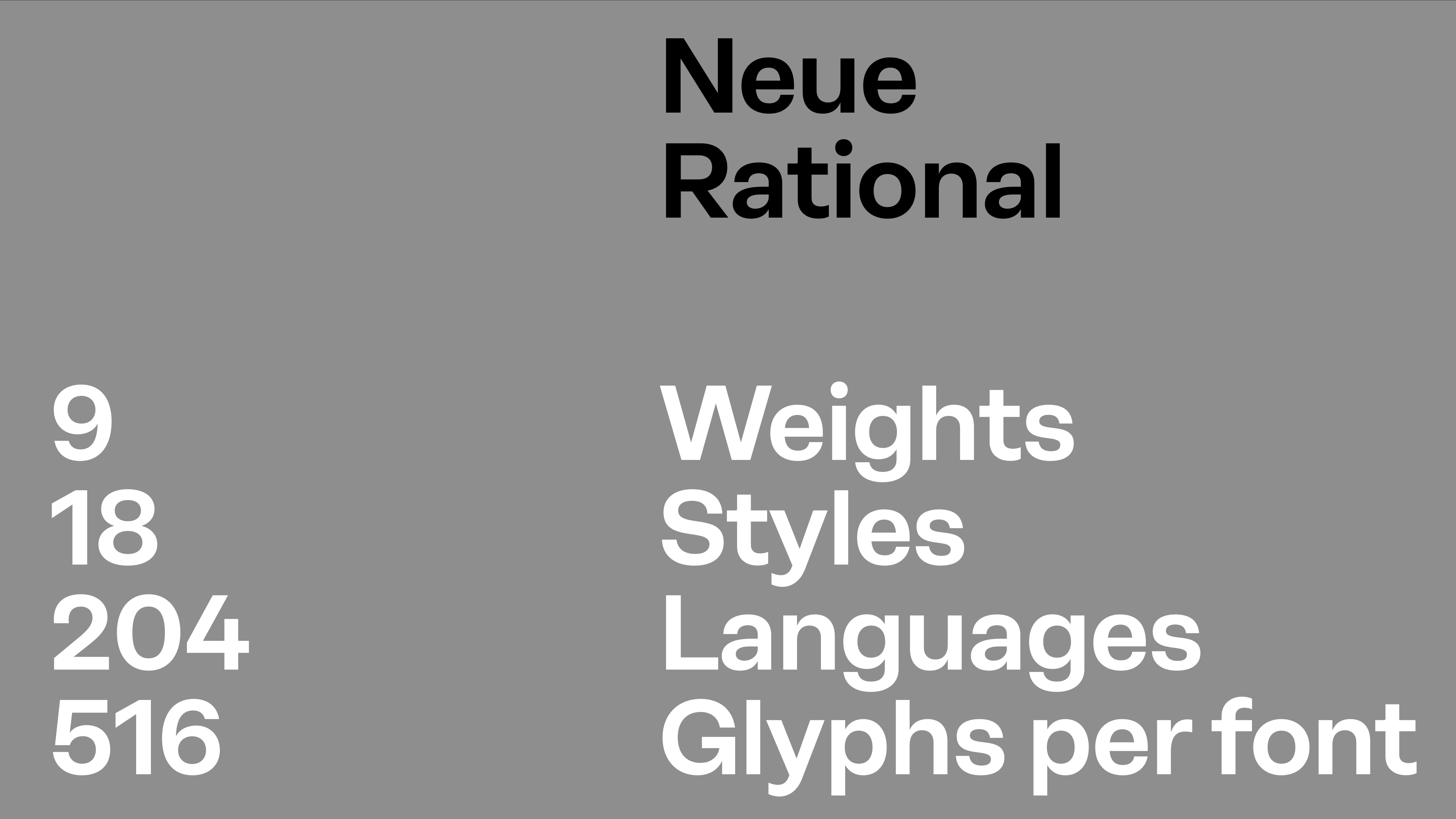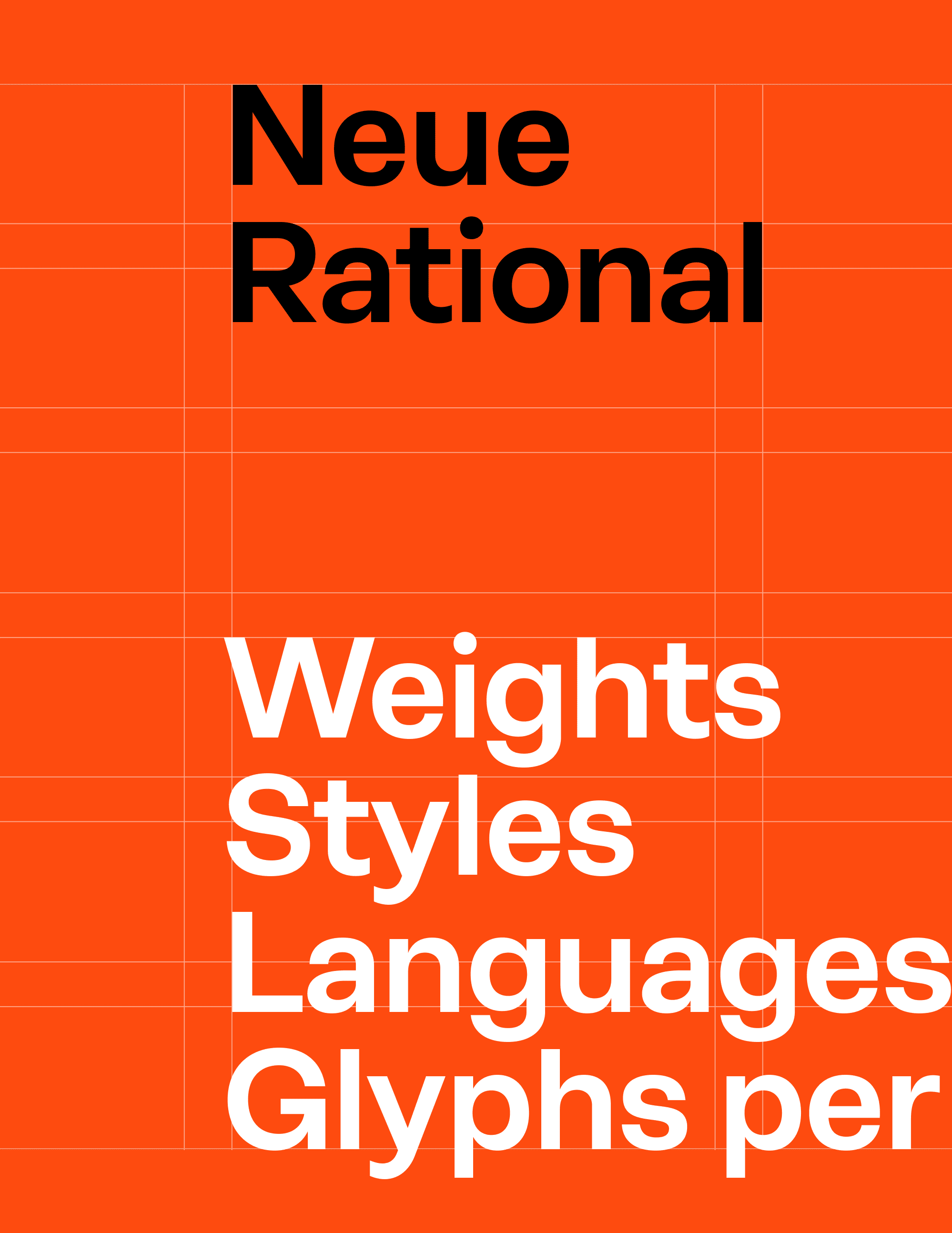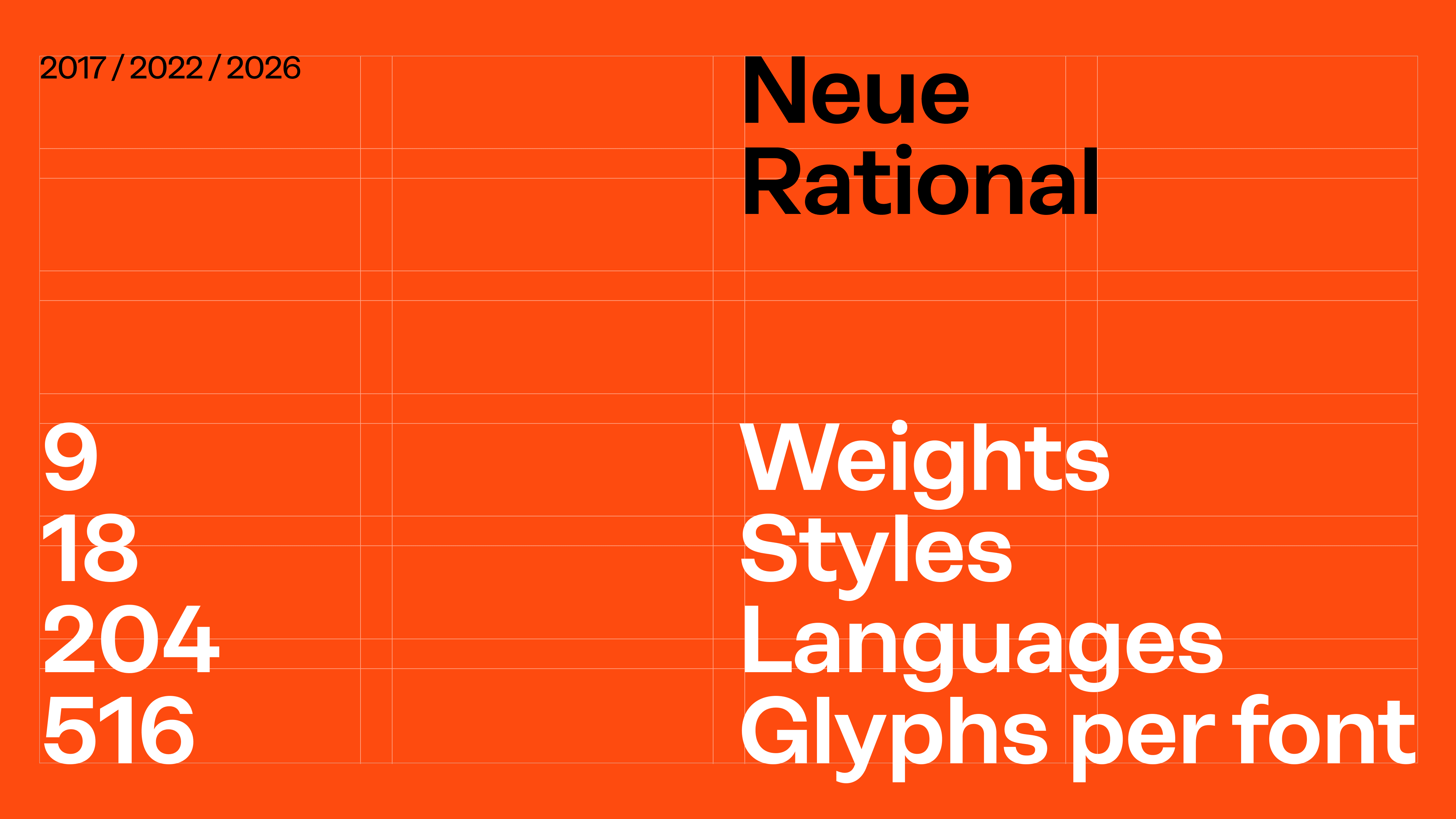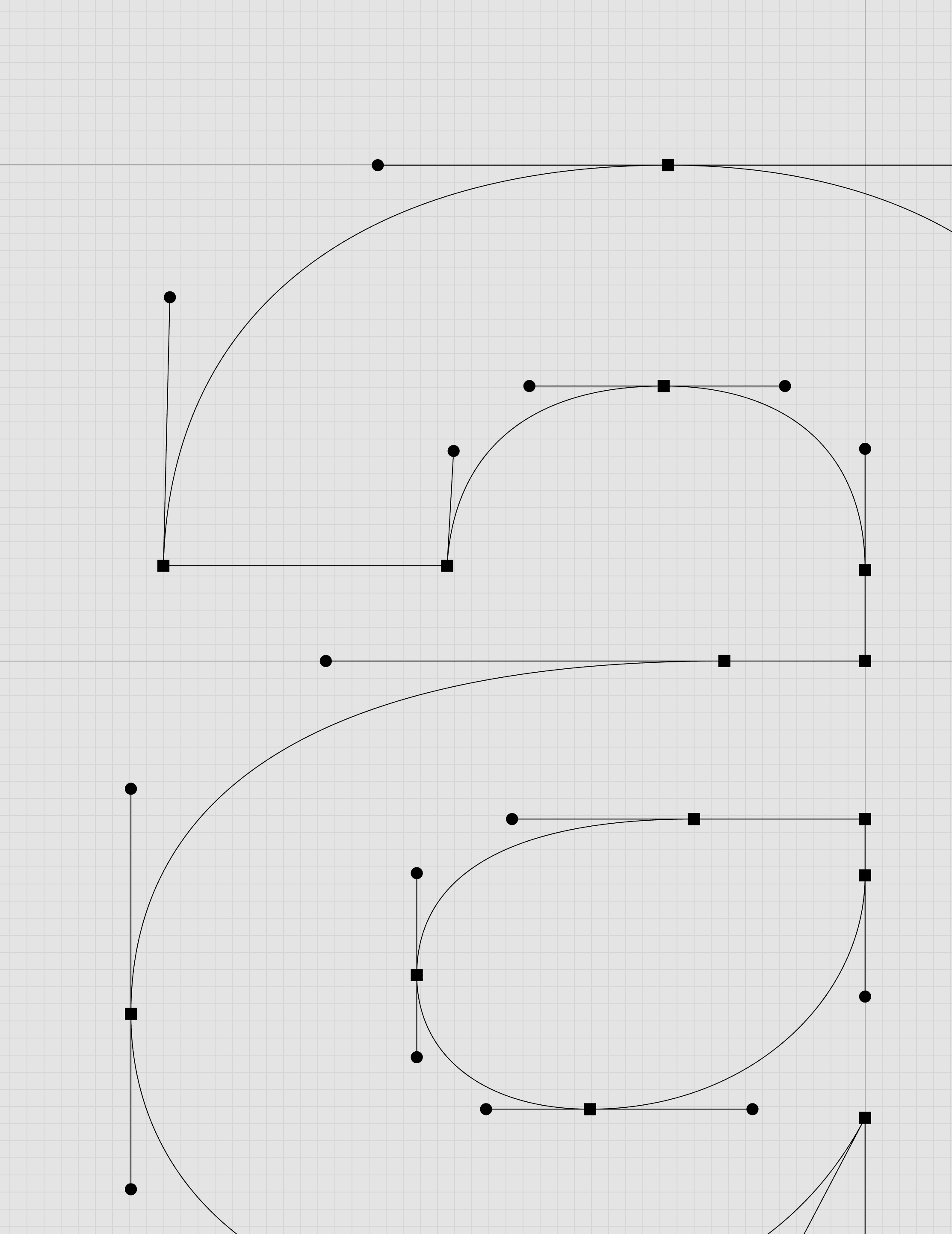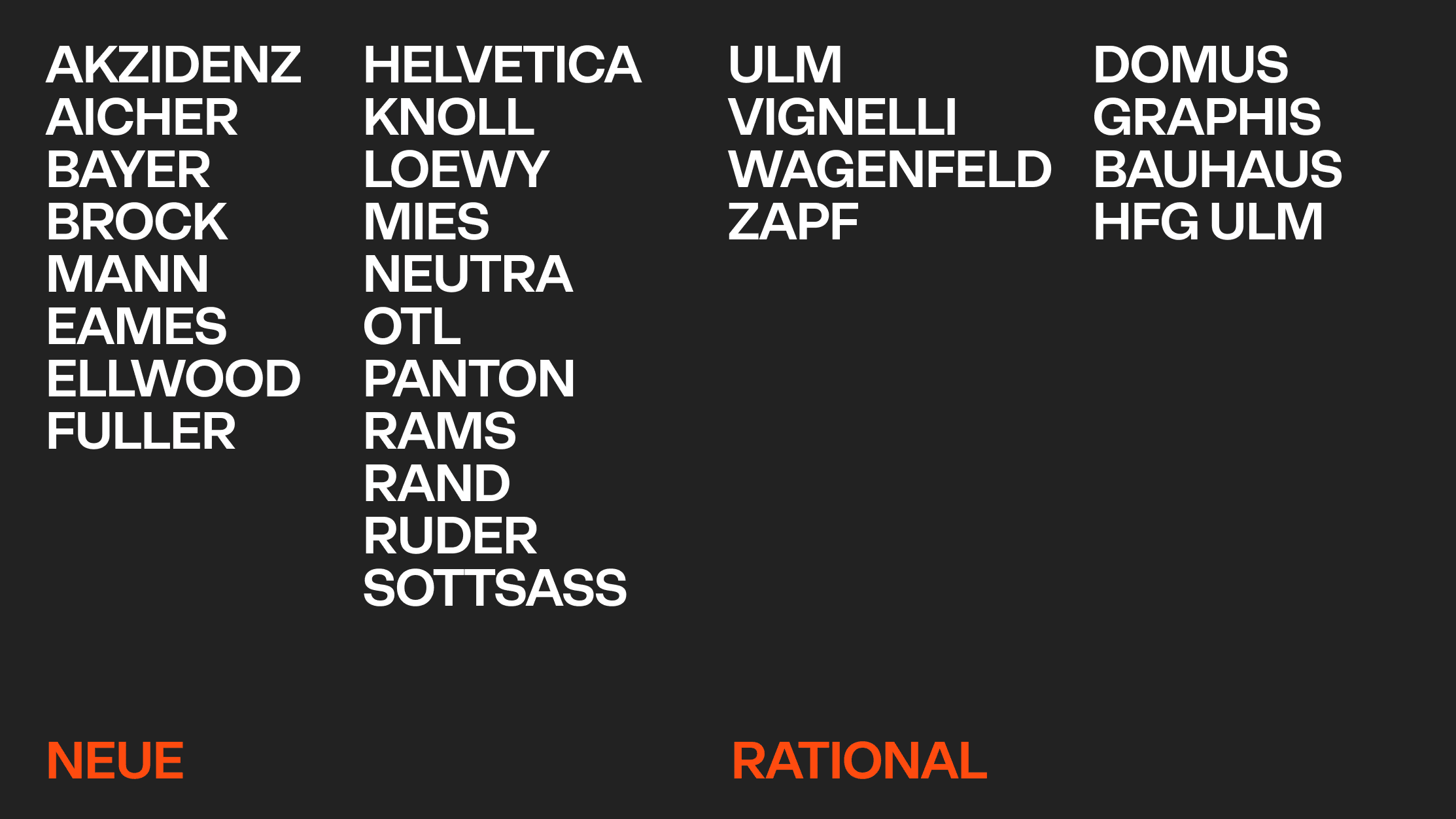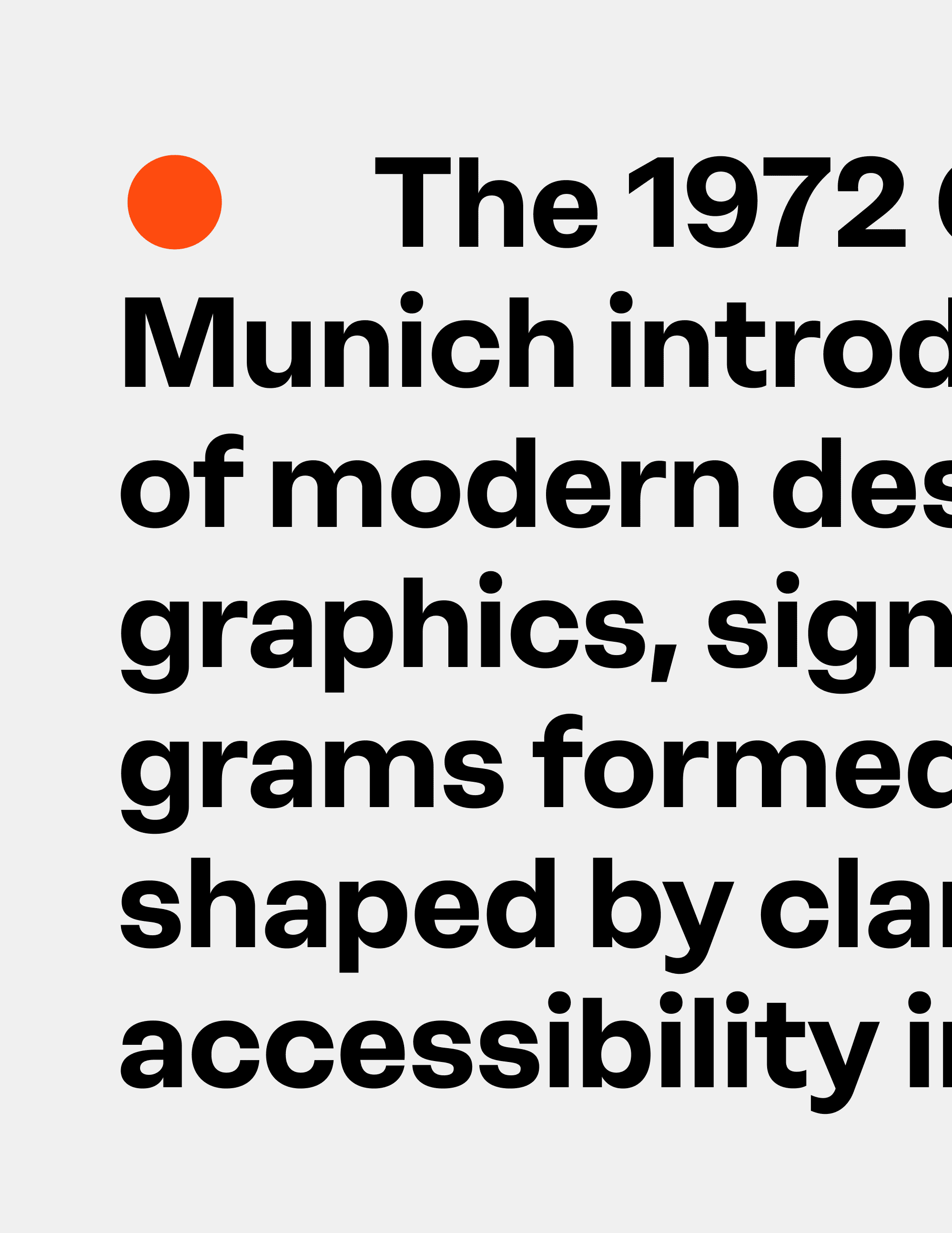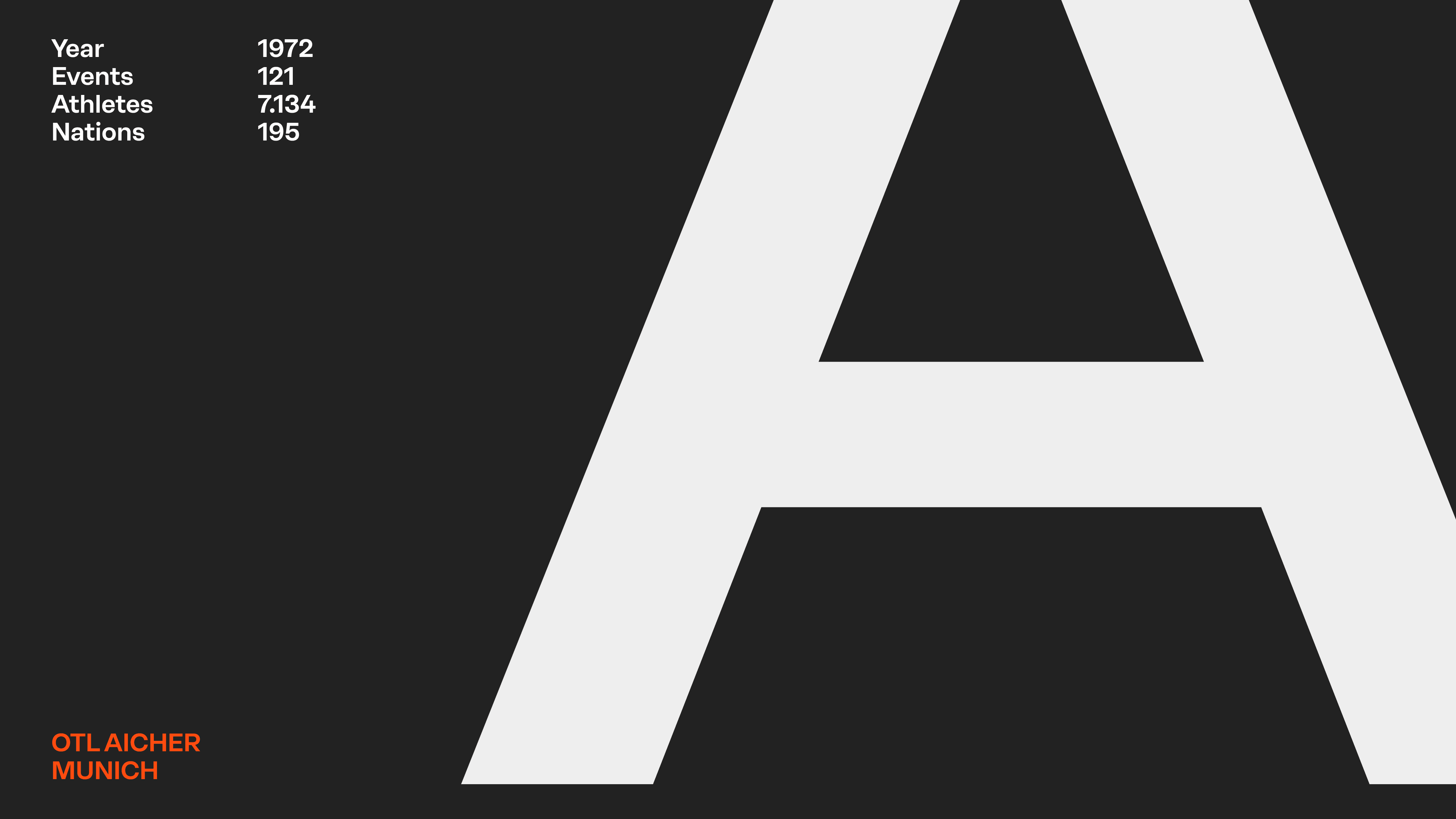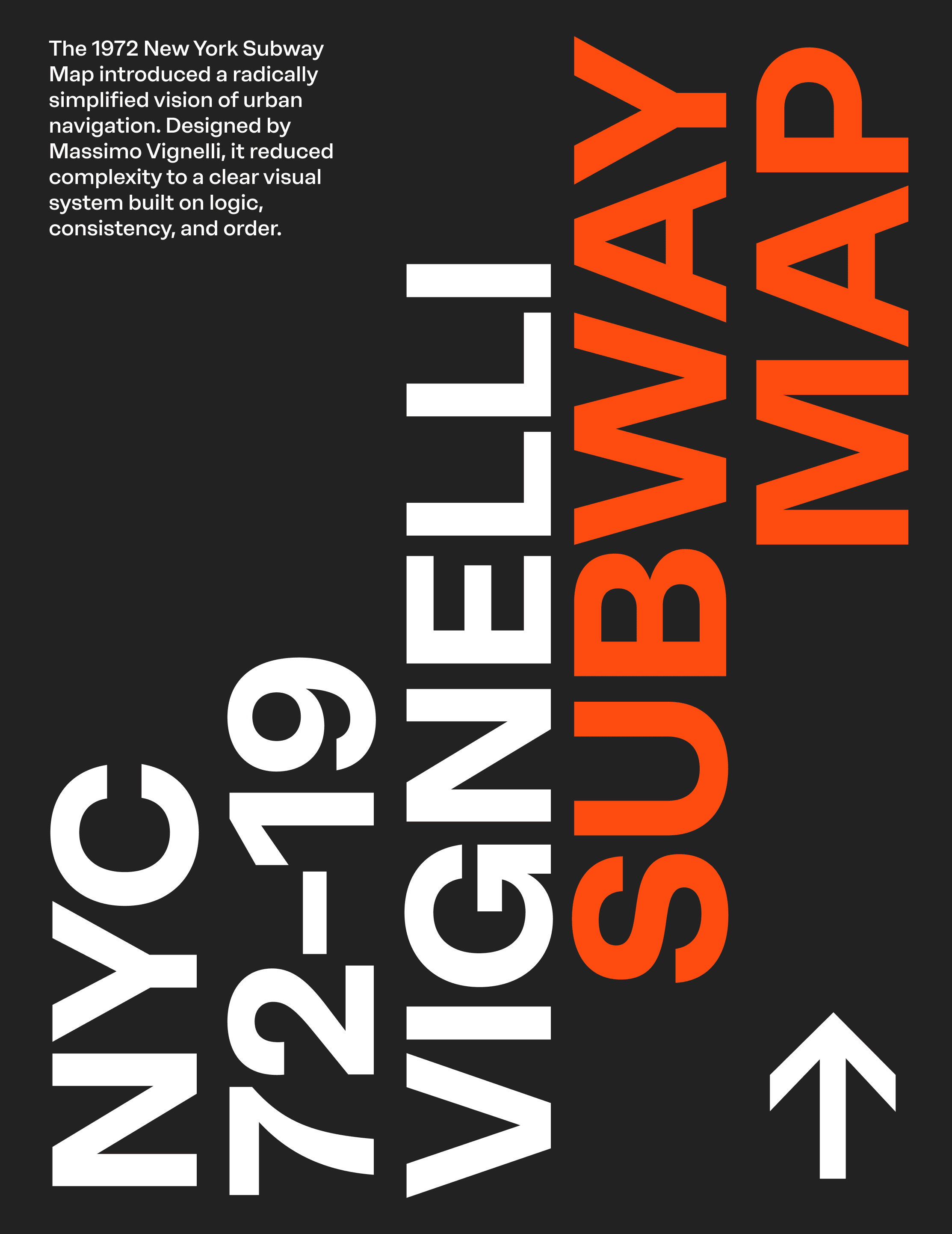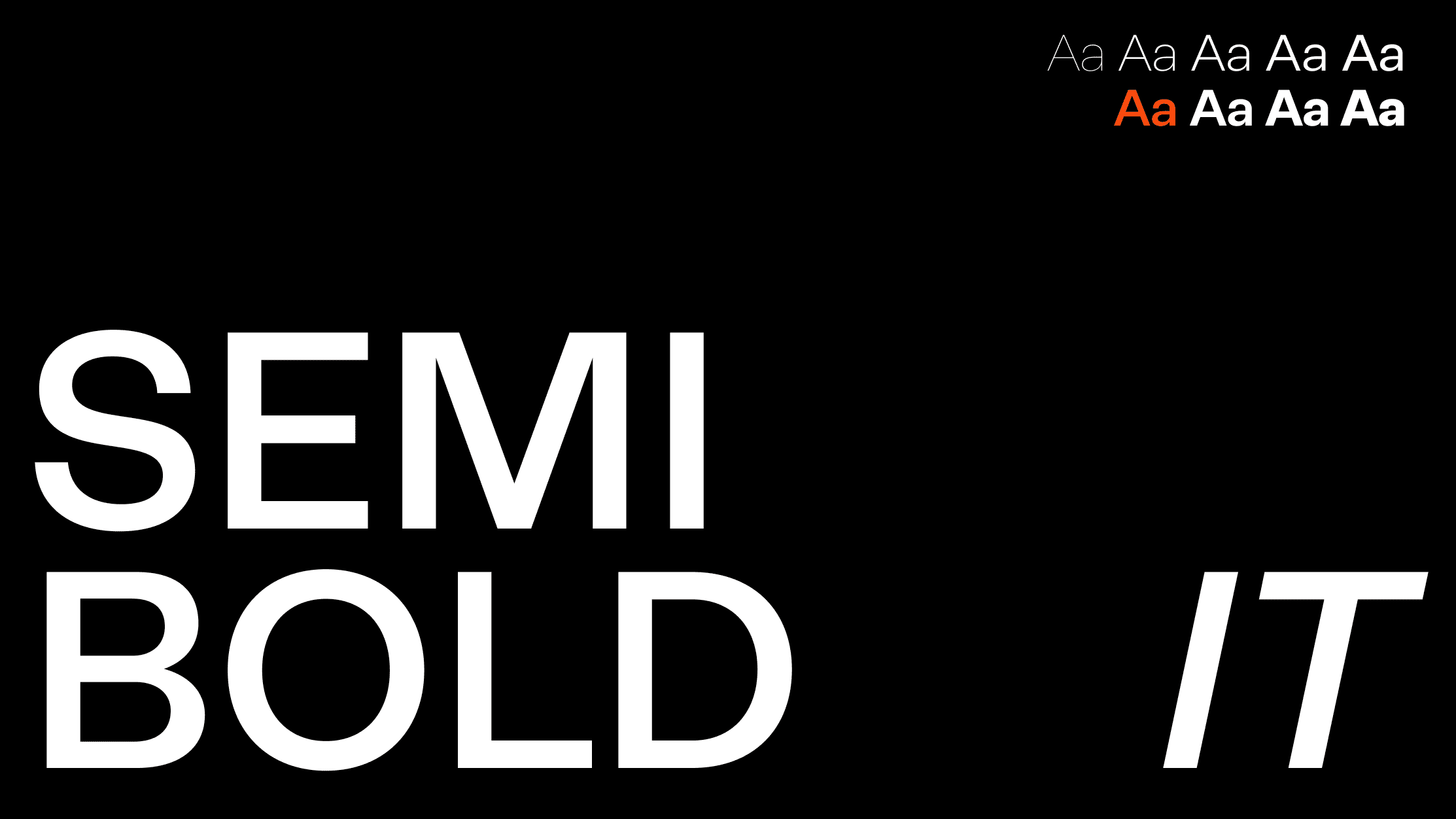
Neue Rational
Neue Rational brings an open, approachable voice to the neo-grotesque tradition. Designed for clarity and efficiency, it forms part of a versatile system. Also available in Condensed, Narrow, Mono, and Mix.